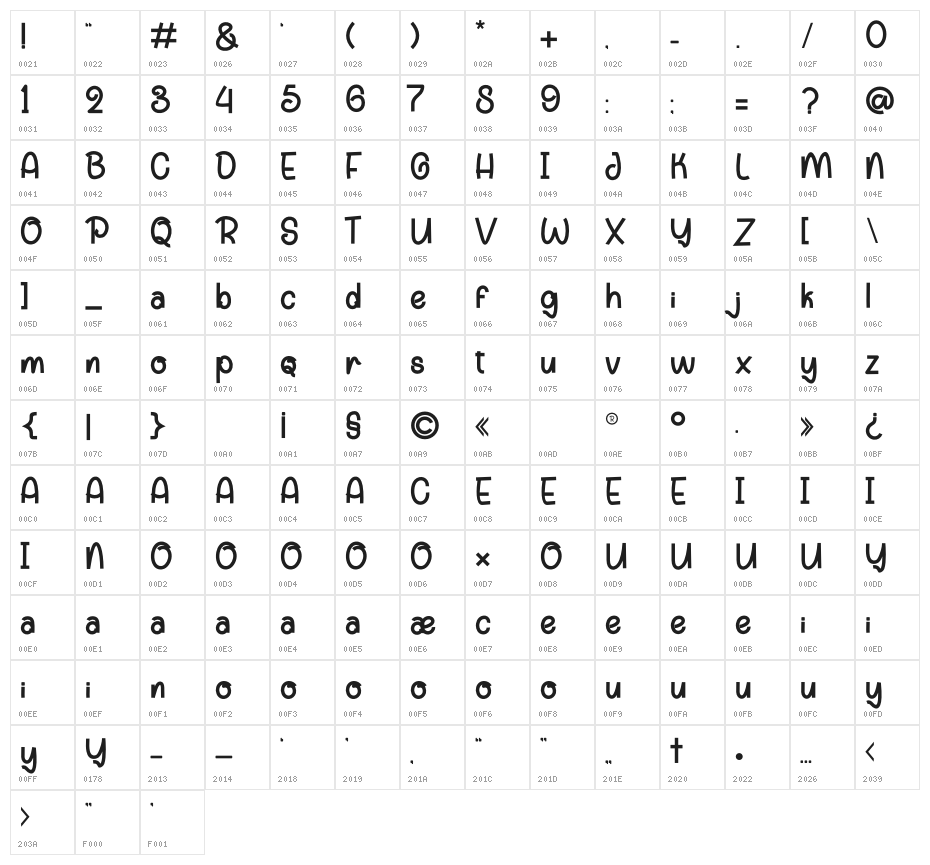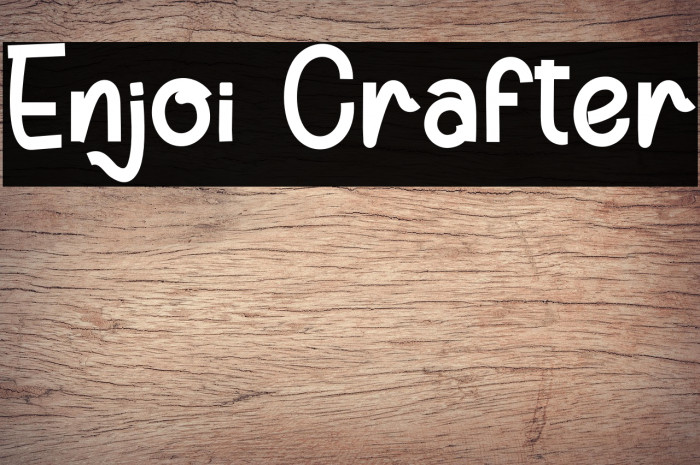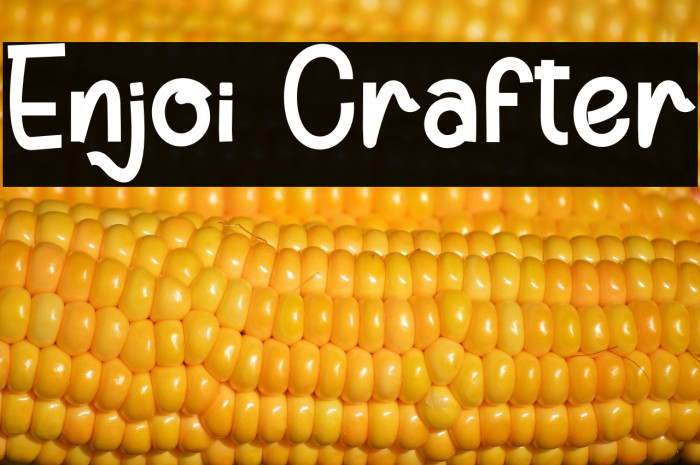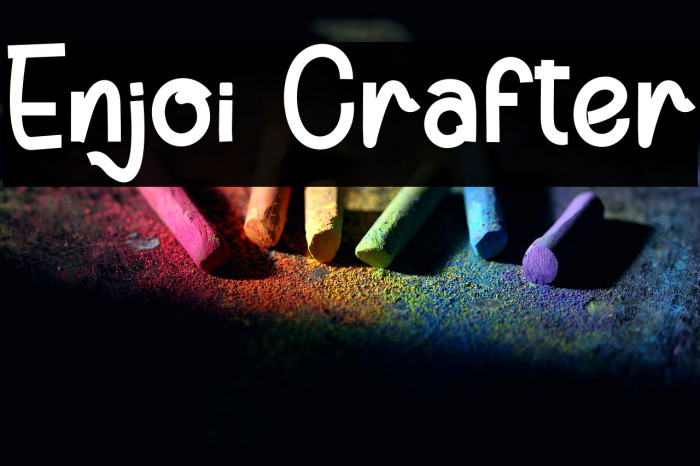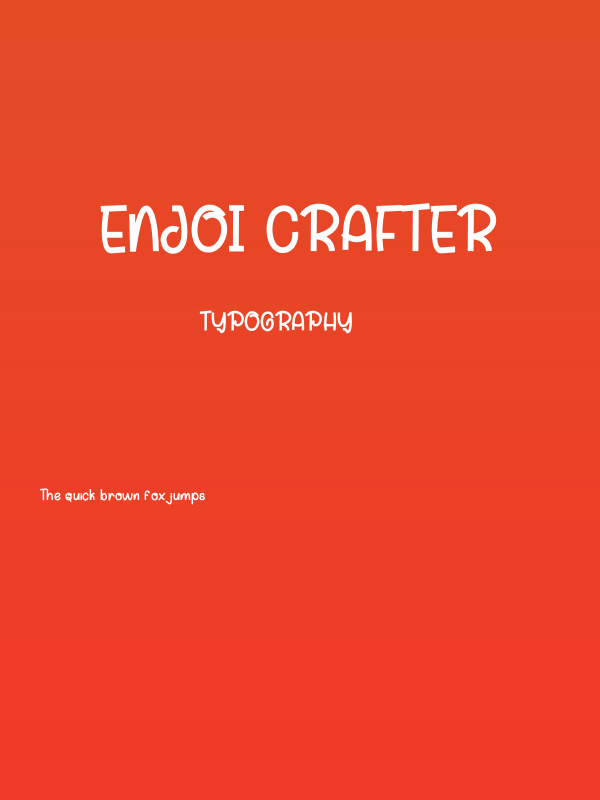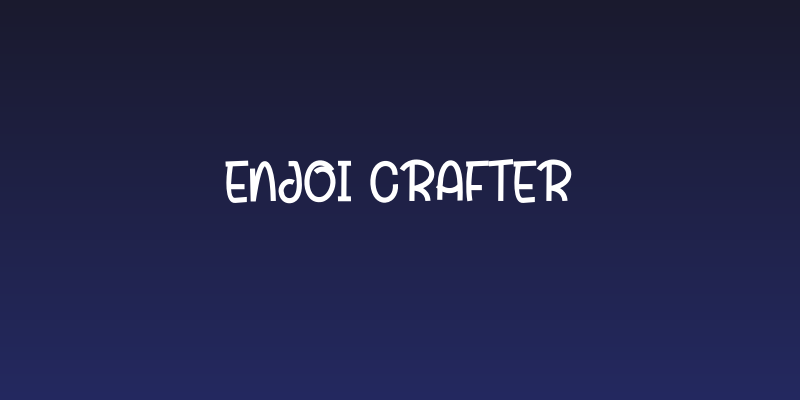
Enjoi Crafter Font
Enjoi Crafter Description
This playful and whimsical font features a bold and rounded style with a hand-drawn appearance. The letters have a consistent thickness, giving it a uniform look, while the slight irregularities in the shapes add a touch of charm and personality. The uppercase and lowercase letters are well-balanced, with a slight tilt that enhances its casual and fun vibe. The numerals are clear and easy to read, maintaining the same playful aesthetic. Special characters are included, complementing the overall style. This font is ideal for projects that require a friendly and approachable feel.
Overall StylePlayful
Proposed ProjectsPerfect for children's books, playful branding, party invitations, and casual posters.